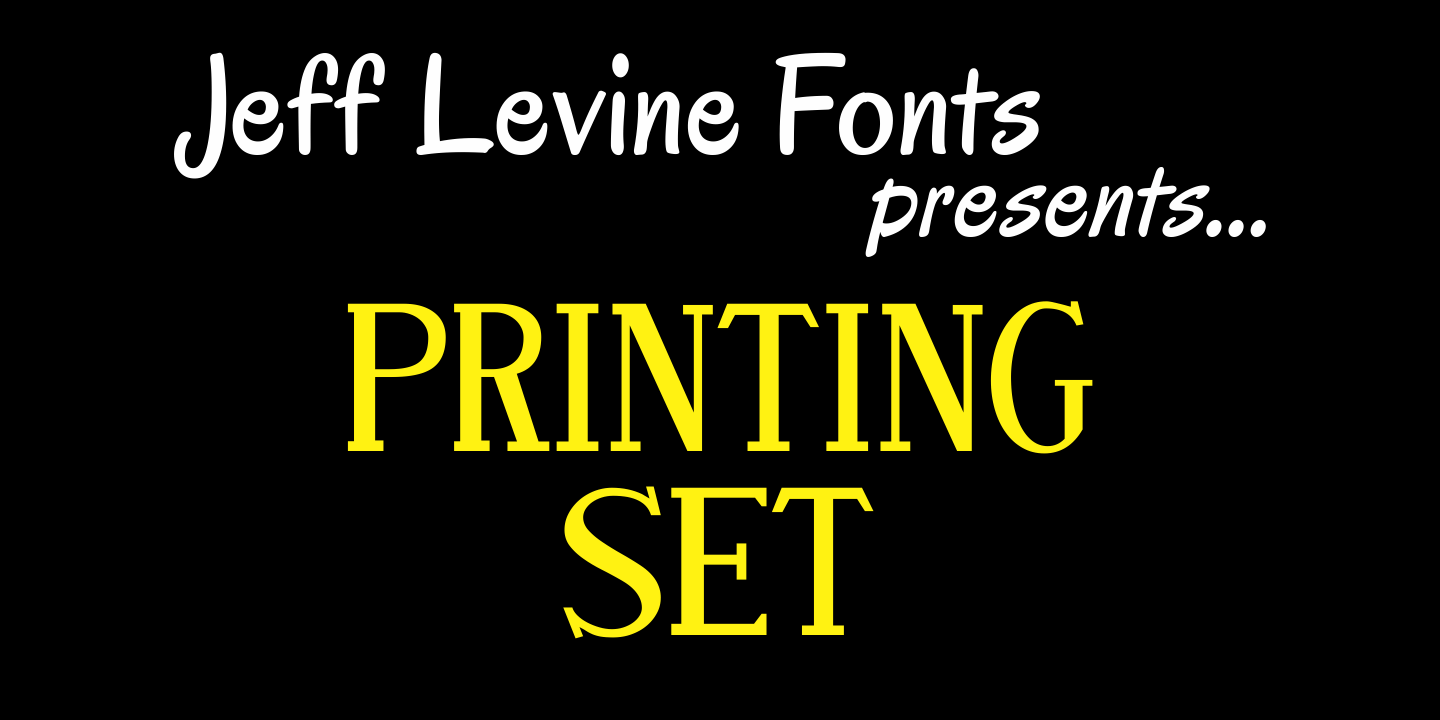
Printing Set
Printing Set JNL by Jeff Levine comes from a toy rubber stamp printing set imported from Japan in the 1950s and 1960s that's been revived, but is now imported from China.
The font has a serif letter so typical of import toys of the day, but actually reads quite nicely in short headlines and specialty ad copy.
Printing Set JNL Regular by Jeff Levine Fonts